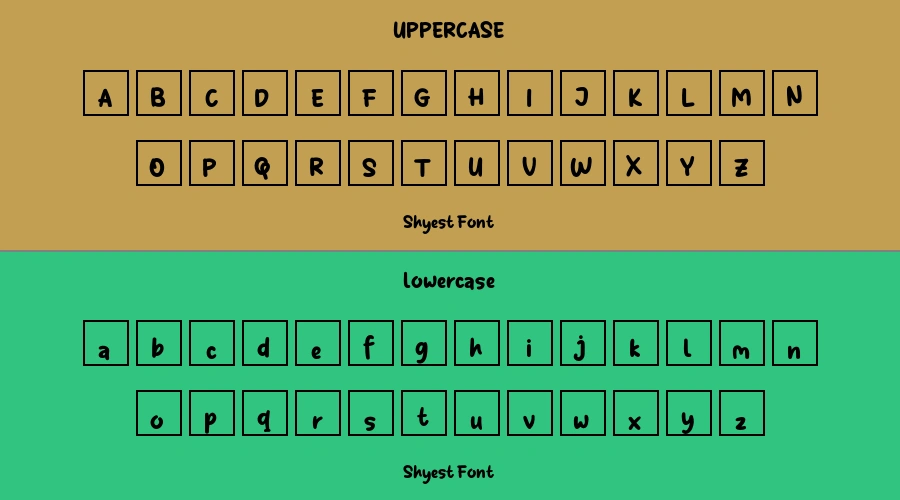
About Shyest Font
Shyest Font represents a sophisticated approach to type design, balancing rhythmic patterns with excellent legibility. Perfect for architectural plans, this font family showcases impressive flexibility and craft excellence throughout its character set. Designers appreciate its versatility and reliability.
Designers will appreciate nuanced touches including ligatures and connecting forms, adding sophistication to any project. These features become apparent in product names, where memory recall matters most. The careful treatment of aperture size and cultural context ensures optimal performance.